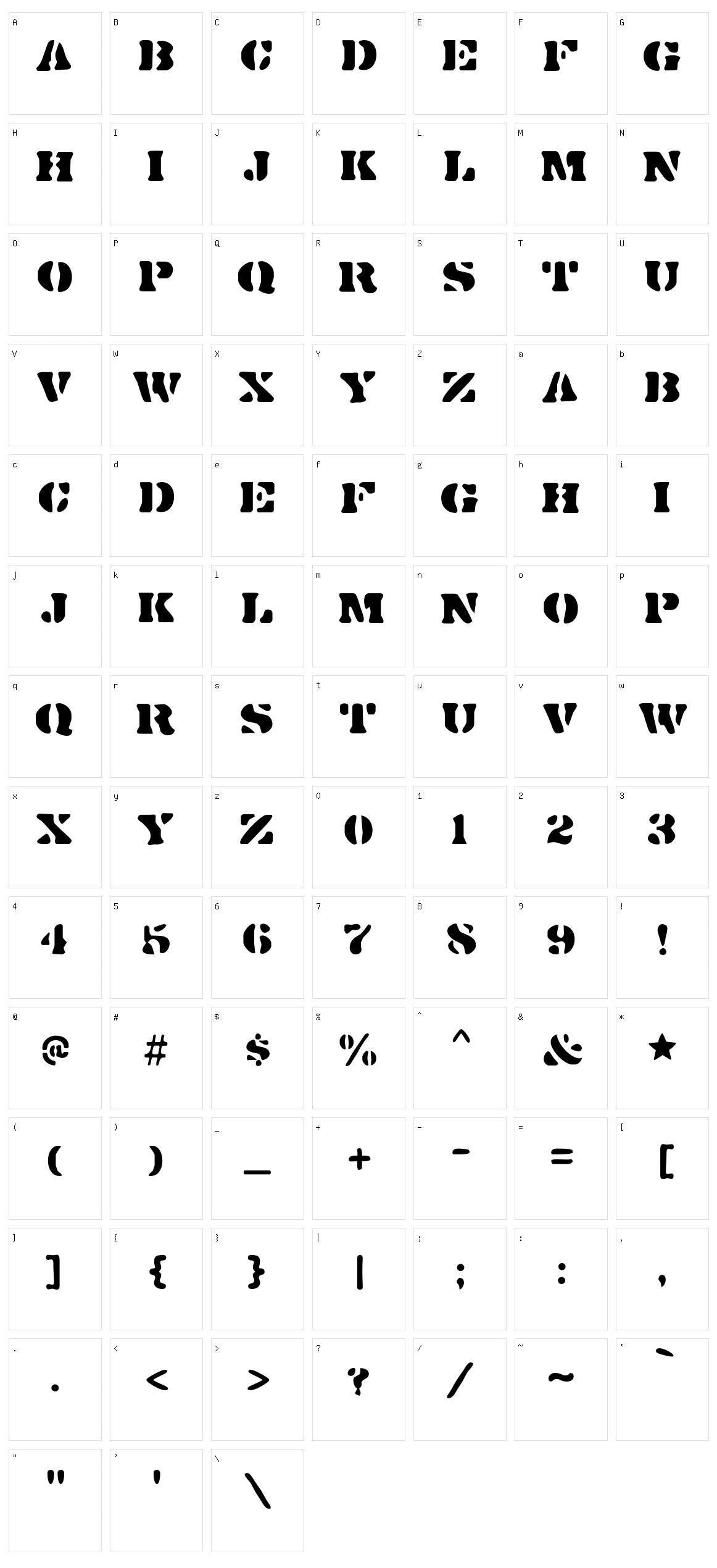
The free font Dirty Bakers Dozen is carefully designed by Typodermic Fonts, showcasing a thoughtful balance of creativity and usability and falls under the Stencil font style. When you download the ZIP file, it contains only 182.61 KB of font files, making it lightweight and quick to download. Please review the license details below to understand permitted usage and distribution rights. If license information is not available, we recommend using this font for personal projects only or contacting the author directly for commercial usage permissions.